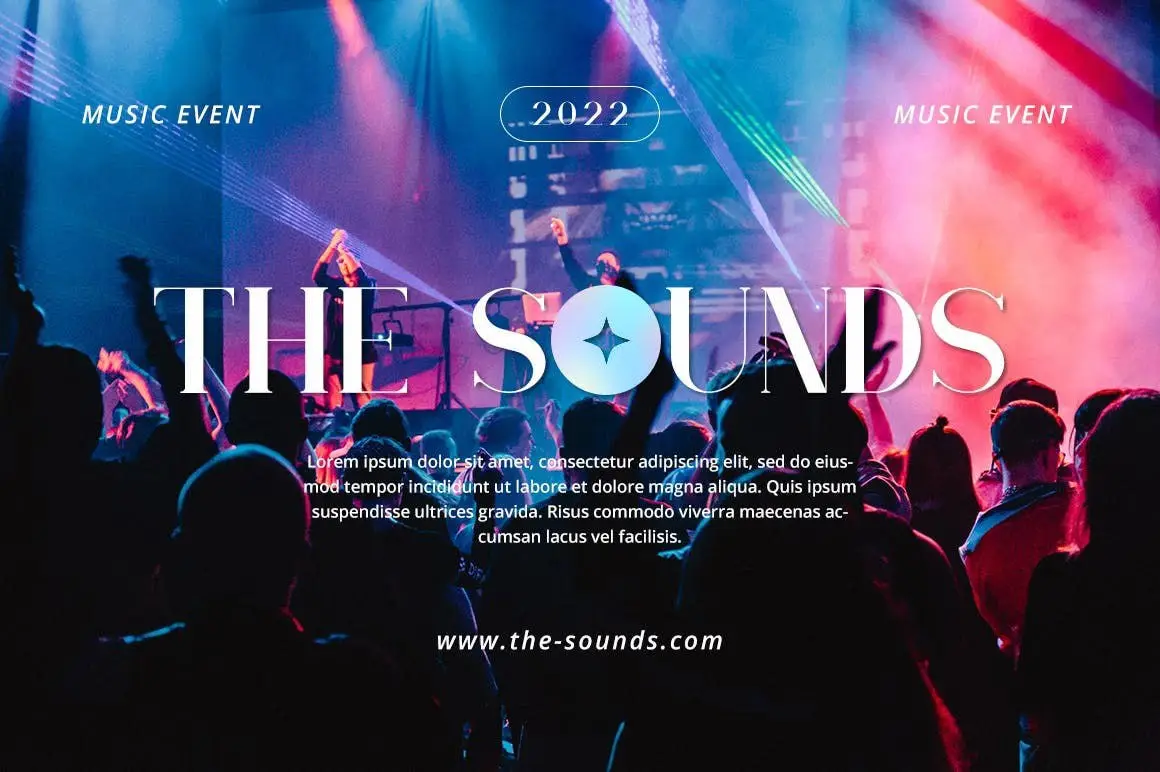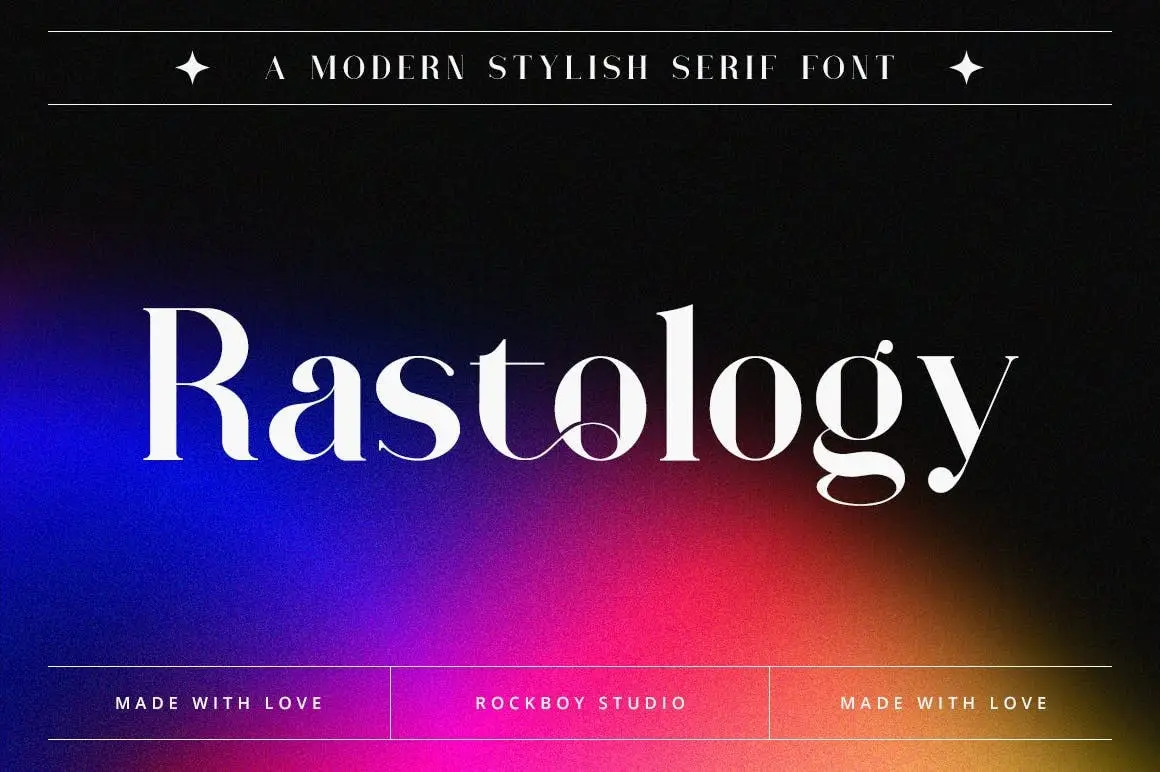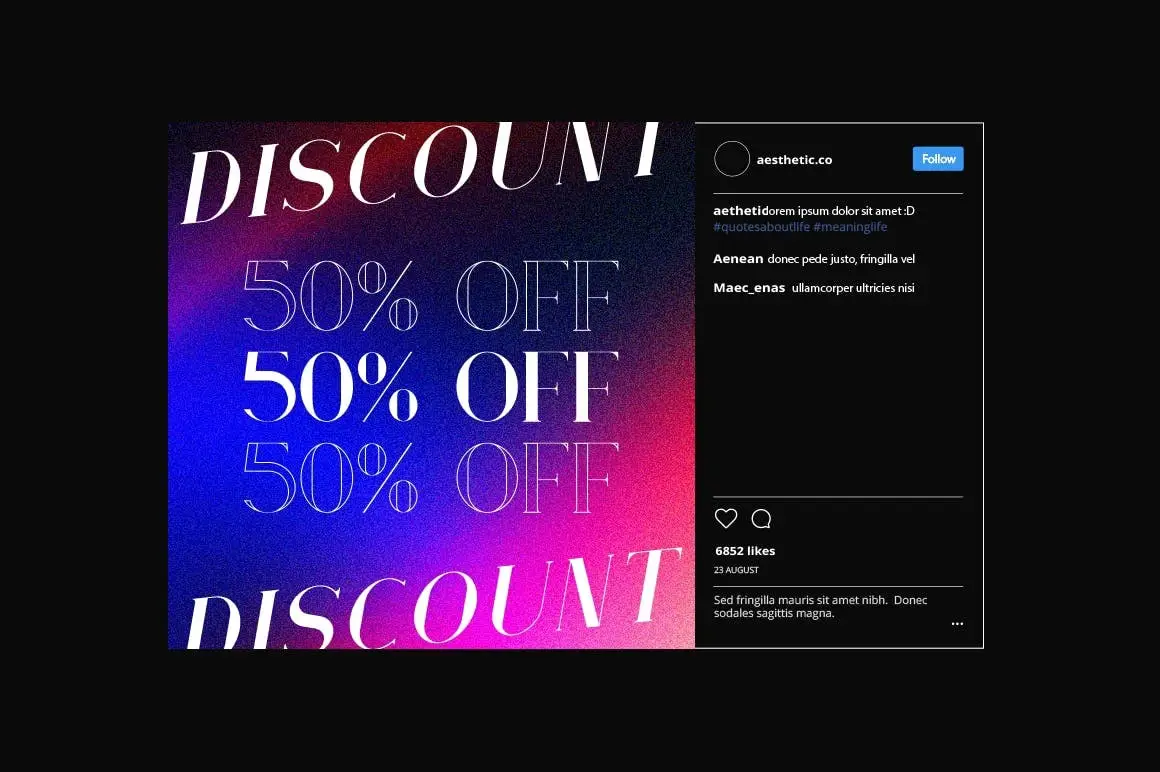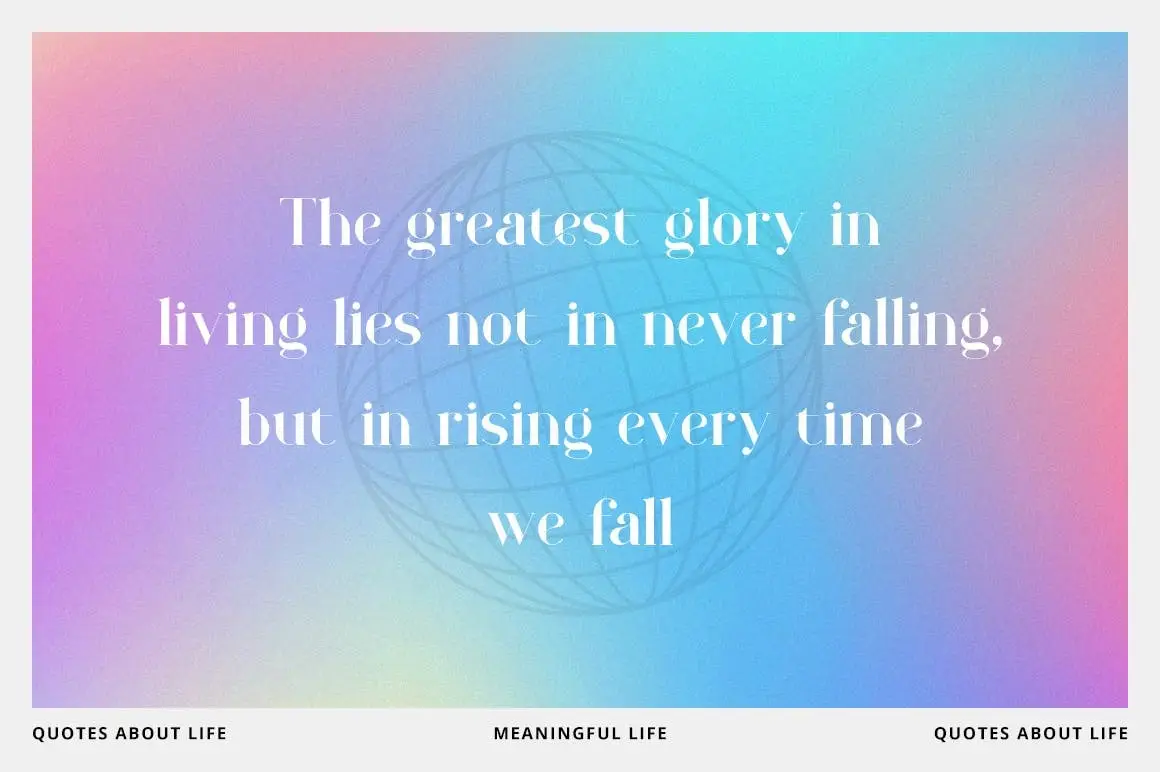
Rastology Font
The Rastology Font is a unique and stylish typeface that brings a modern flair to your design projects. With its clean lines and distinctive character, this font is perfect for a variety of applications, including branding, logos, web design, and print materials.
• Available in multiple weights for versatile use
• Includes uppercase and lowercase letters, numerals, and punctuation
• Stylish and contemporary design suitable for various themes
Utilize the Rastology Font in your branding projects, social media graphics, or any creative work that requires a touch of elegance and modernity.